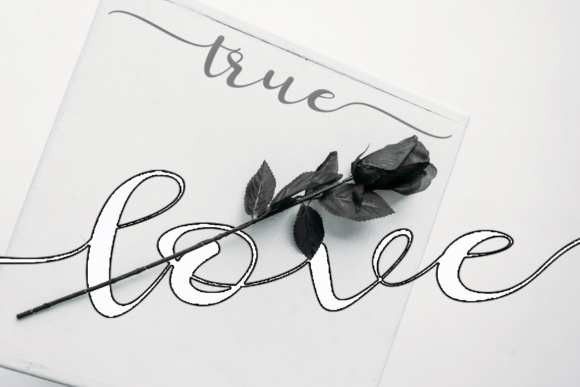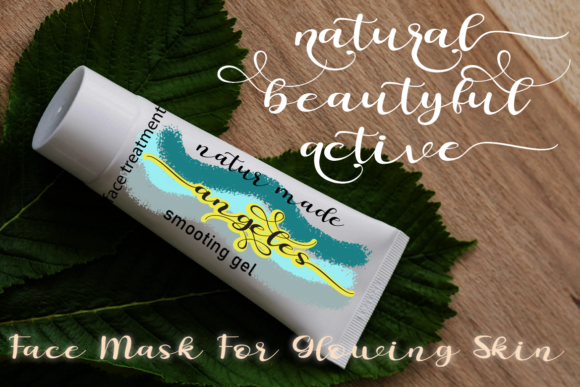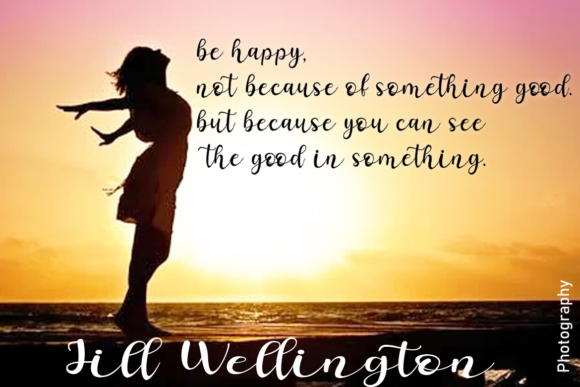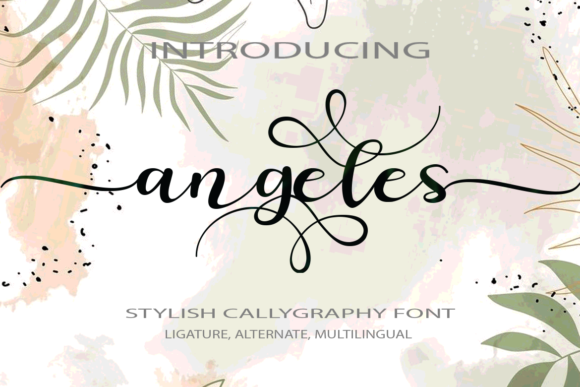
Introduction to Angeles Font
Angeles is an incredibly unique and beautiful handwritten font.
Masterfully designed to become a true favorite, this font has the potential to bring each of your creative ideas to the highest level This font is PUA encoded which means you can access all of the glyphs and swashes with ease.
Angeles Font offers exceptional quality and versatility, making it a valuable addition to your design toolkit. Whether you’re creating for personal projects or commercial use, Angeles Font delivers professional results.